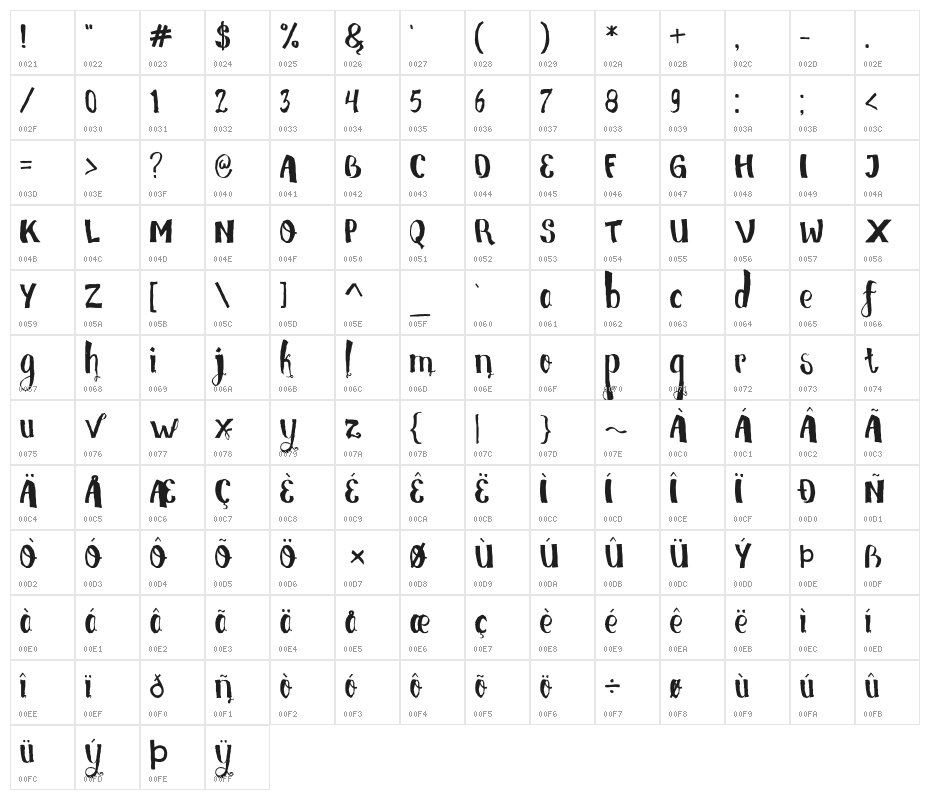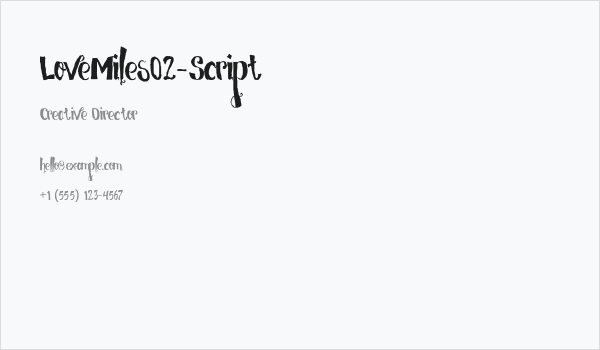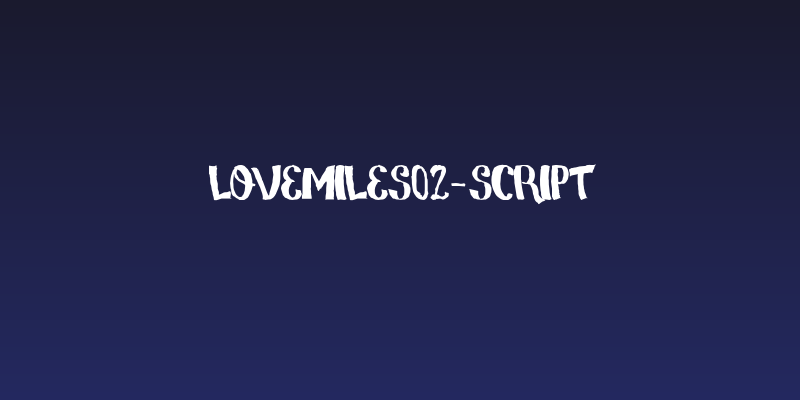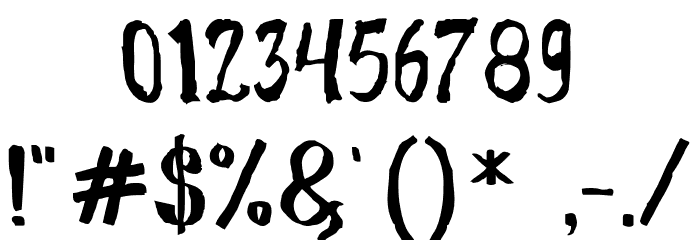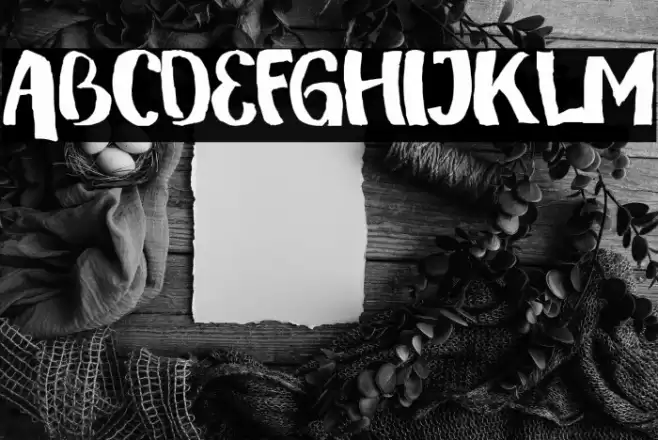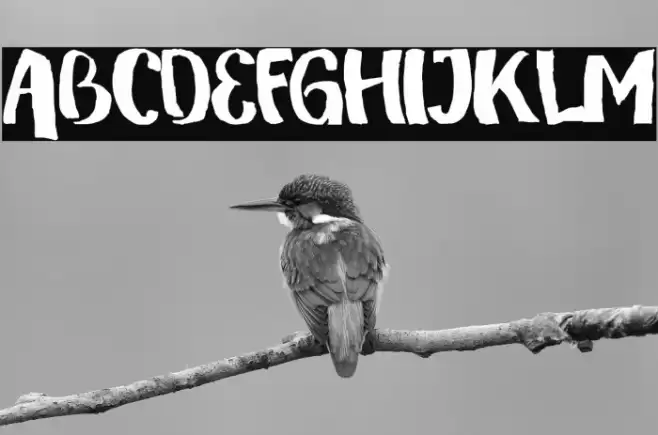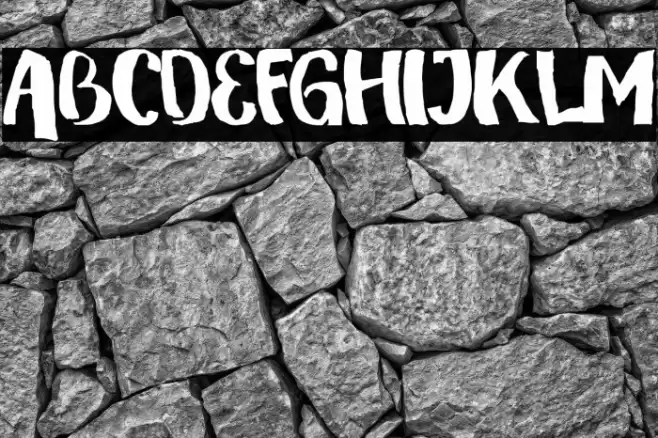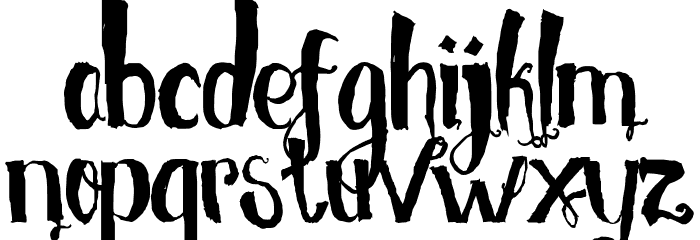
LoveMiles02-Script Font
LoveMiles02-Script Description
This font exhibits a bold and expressive script style with a hand-drawn appearance. The uppercase letters are robust and dynamic, featuring thick strokes and a slightly irregular baseline that adds to its artistic flair. The lowercase letters maintain a cohesive flow, with some characters extending below the baseline, enhancing its organic feel. The numerals are consistent with the overall style, offering a playful yet legible design. Special characters are creatively integrated, maintaining the font's unique aesthetic. This font's distinctive character makes it ideal for projects that require a personal touch.
| Overall Style | Decorative |
| Use Case | Logos, Headlines, Artistic projects |
| Proposed Projects | Ideal for greeting cards, invitations, branding, and artistic posters. |